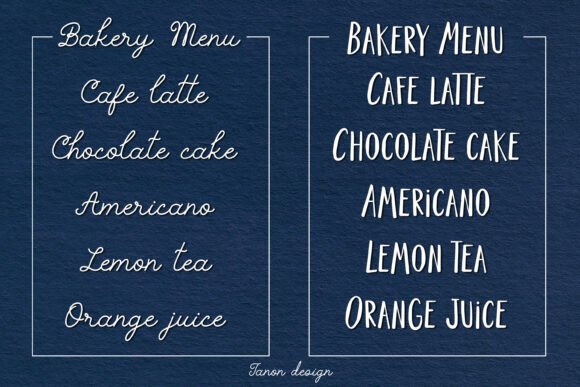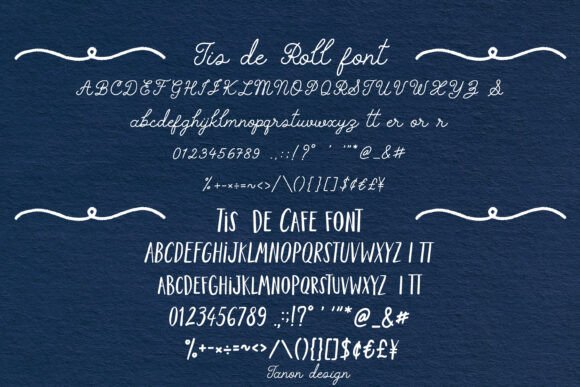
Tis De Roll Duo Font
Tis de Roll and Tis de Cafe is Vintage and Whimsical font duo featuring a playful script paired with a clean sans serif, perfect for adding charm and personality to your designs. Its hand-drawn, whimsical feel is ideal for bakery branding, holiday packaging, greeting cards, café menus, and DIY projects. The sweet and cozy aesthetic evokes feelings of warmth and nostalgia, making it especially suited for festive or artisanal-themed visuals.